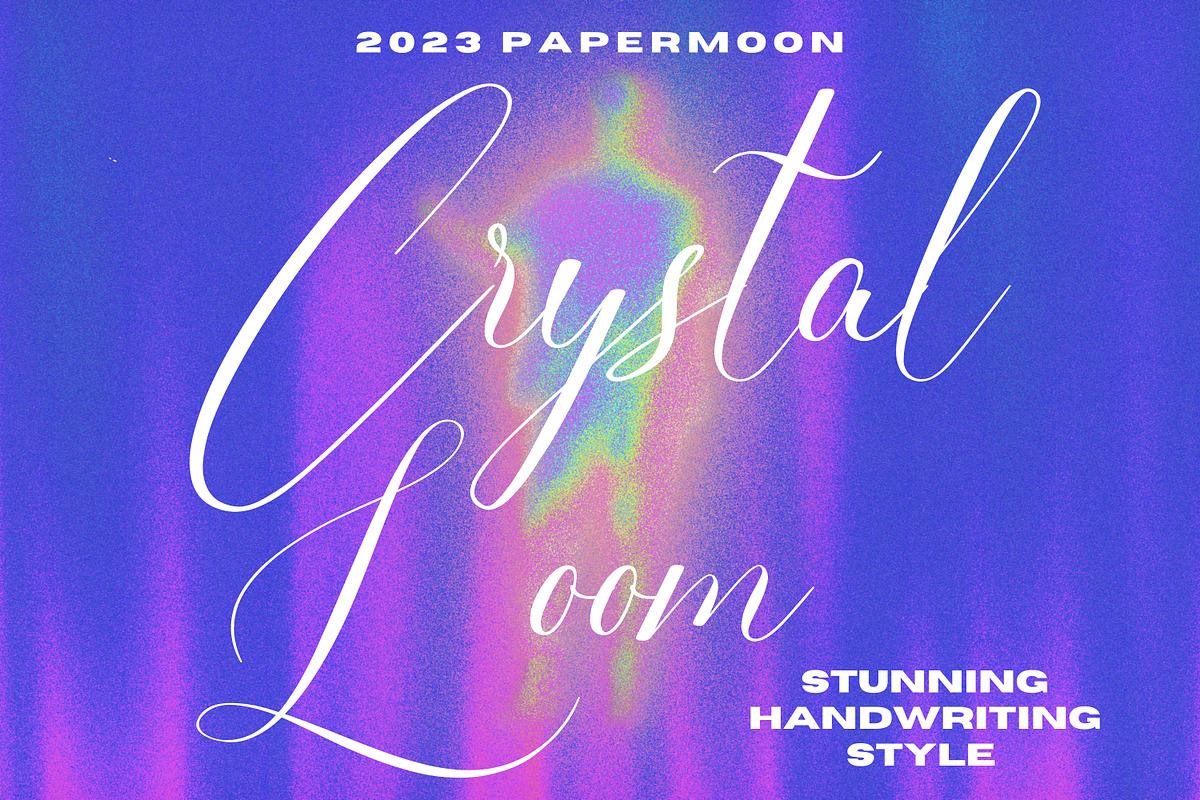
Crystal Loom Stunning Script Font Free Download
Add a touch of elegance and shimmer to your designs with Crystal Loom Stunning Script Font Free Download — a beautifully flowing typeface that radiates sophistication and charm. Perfect for wedding invitations, feminine branding, luxury packaging, beauty blogs, and romantic stationery, this font captures attention with its graceful curves and delicate flair.
Crystal Loom brings the essence of handcrafted elegance, featuring smooth connections, stylish swashes, and a truly refined appearance. It includes a full set of uppercase and lowercase characters, numbers, punctuation, and multilingual support — ideal for upscale, globally-inspired designs.